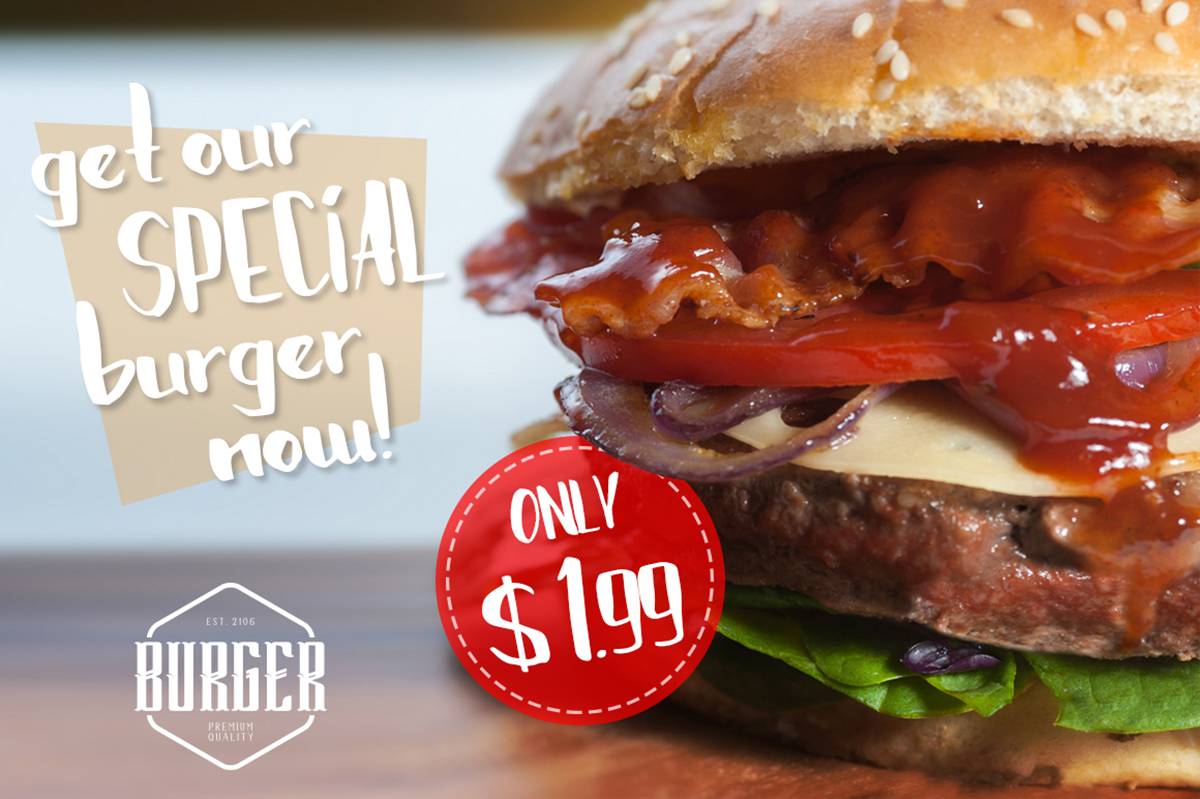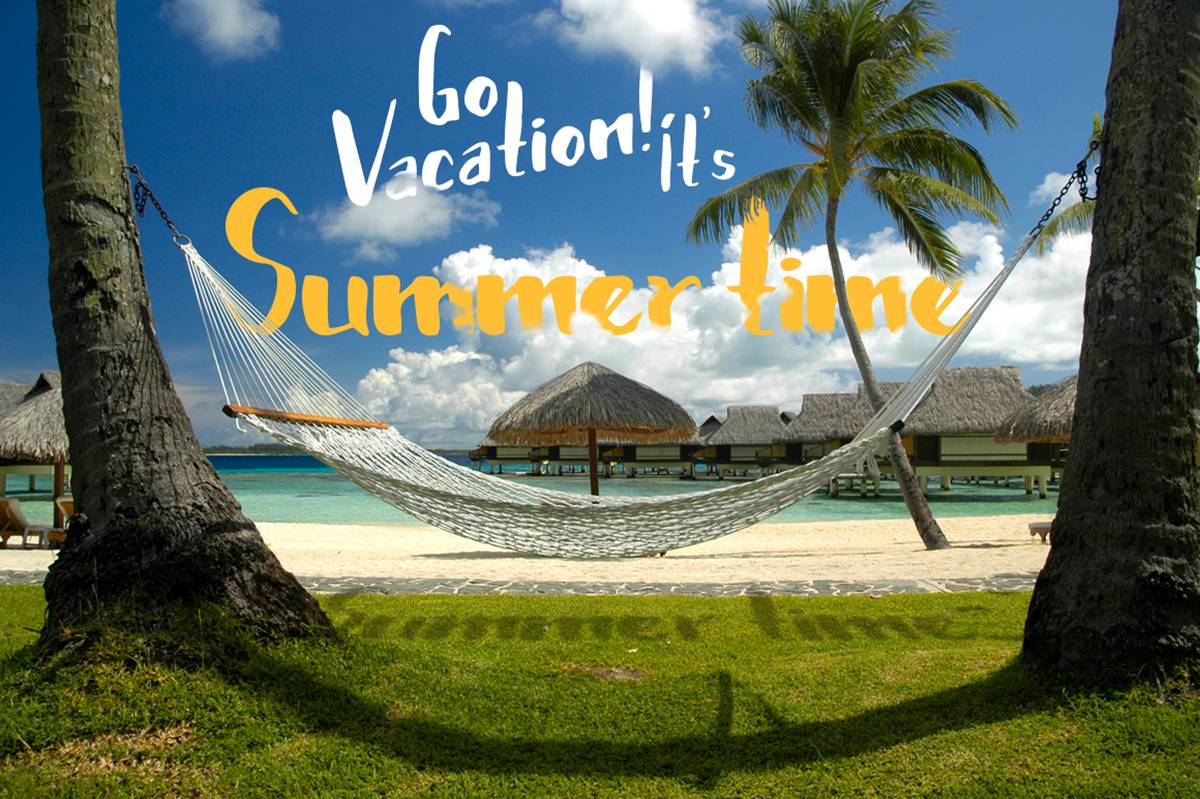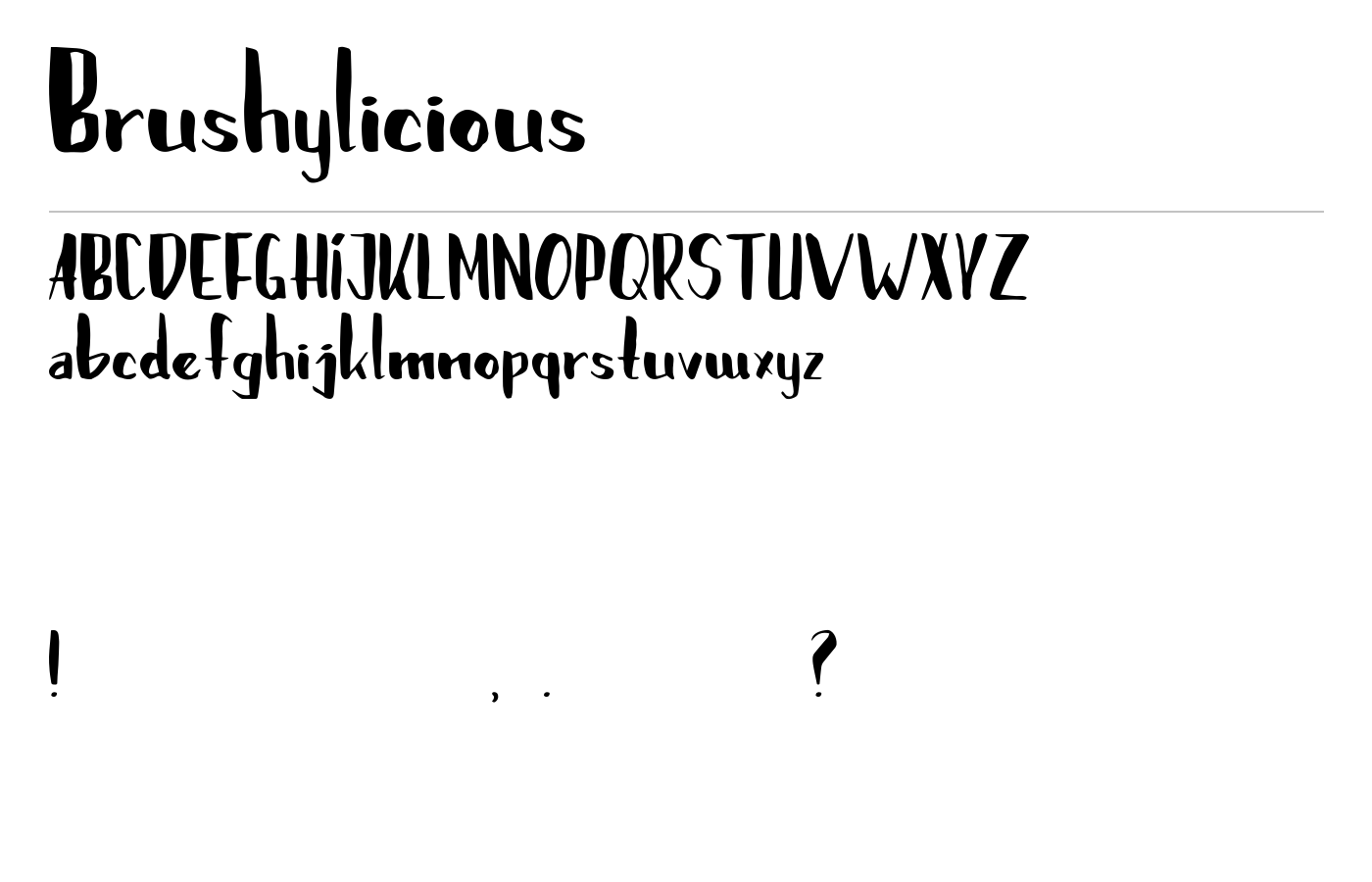
Brushylicious is a lively, handwritten script font with a brush-like texture that gives it a playful and casual personality. Its narrow, tall letterforms with varied stroke widths create a dynamic, informal feel that works great for creative projects, headlines, and branding that want to convey friendliness and energy. This font shines in designs looking to add a unique, artistic flair without losing legibility.